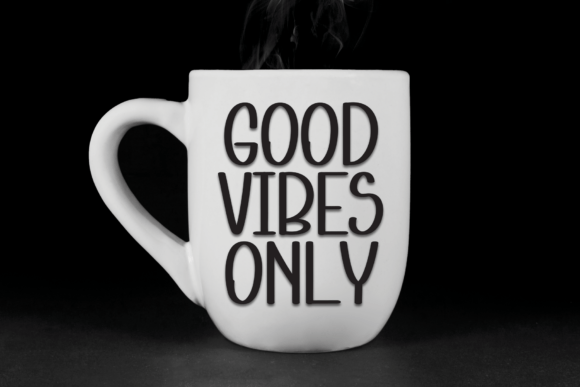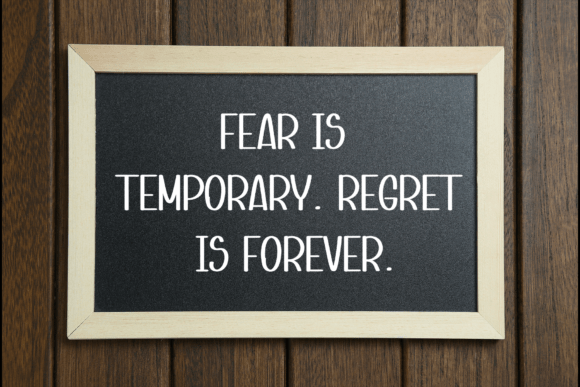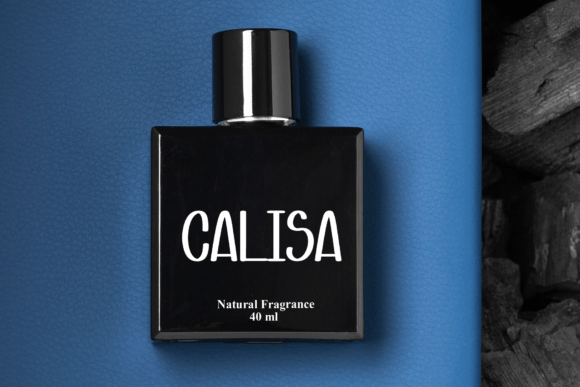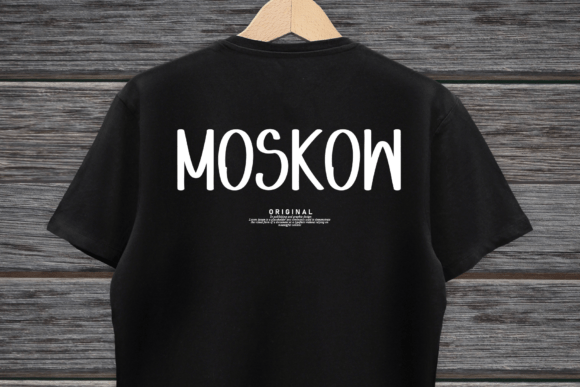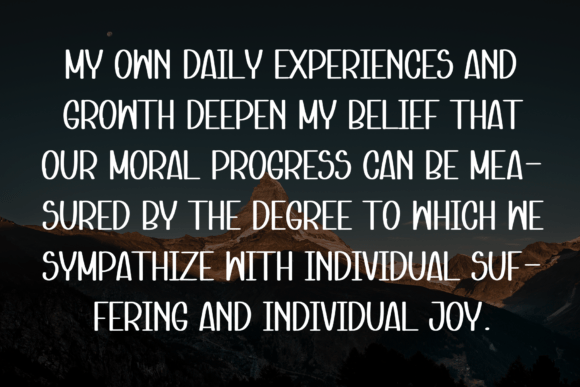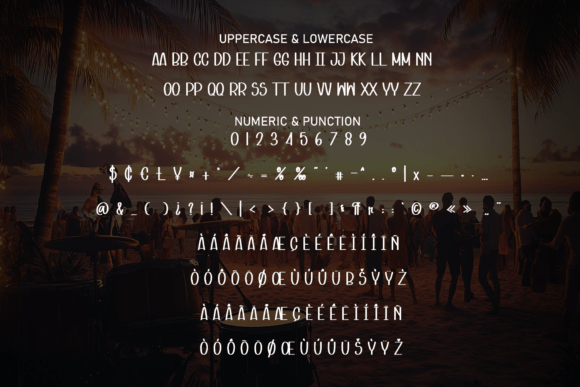
Get Ready to Dive into Summer Vibes with Beach Party Font
Remember that moment when you stumbled upon the perfect font for your next design project? It’s like finding that hidden treasure on the beach, and you can’t wait to share it with the world. For designers, finding the right font can be the key to unlocking a project’s full potential. And, trust us, Beach Party Font is one of those treasures that’s sure to make a splash.
Beach Party Font is a delightful handwritten font that exudes warmth and friendliness. Its unique style makes it incredibly versatile, allowing you to unleash your creativity and bring your designs to life. Whether you’re working on a summer-themed project or just want to add a touch of whimsy to your next design, Beach Party Font is the perfect companion. With its natural charm, the possibilities are endless, and your imagination is the only limit.
Beach Party Font Key Features
- Font Family: A fun, playful sans-serif font designed to evoke the feeling of a beach party.
- Unique Characteristics: The font features a bold, rounded design with exaggerated letterforms, making it perfect for creating eye-catching headlines and titles.
Designer Review: Beach Party Font
Overall, I think the Beach Party Font is a fun and playful addition to any design project. The font is perfect for summer-themed designs, party invitations, and even social media graphics. ✨ The bold and vibrant lines make it stand out, and the varied line weights give it a nice depth.
Here are some specific things that I think work well:
- The font’s personality shines through in its bold, playful lines, making it perfect for creating a fun and carefree atmosphere.
- The varied line weights allow for a range of visual effects, from bold headings to delicate details.
- The font is highly customizable, with options for color, size, and spacing that make it easy to adapt to different design needs.
- The font may not be suitable for formal or professional designs, as its playful nature may detract from the message.
- The font’s bold lines may be overwhelming if used extensively, so it’s best to use it sparingly to add emphasis.
Overall, I think the Beach Party Font is a great addition to any designer’s toolkit, but it’s best used in moderation to avoid overwhelming the design.
The Beach Party Font is perfect for creating fun and playful designs, such as:
- Summer-themed invitations and party flyers.
- Beach-themed social media graphics and ads.
- Children’s book illustrations and storybooks.
Remember to use the font in moderation and balance it with other design elements to avoid overwhelming your design.